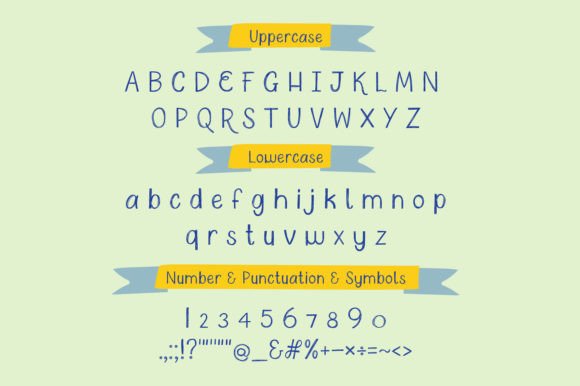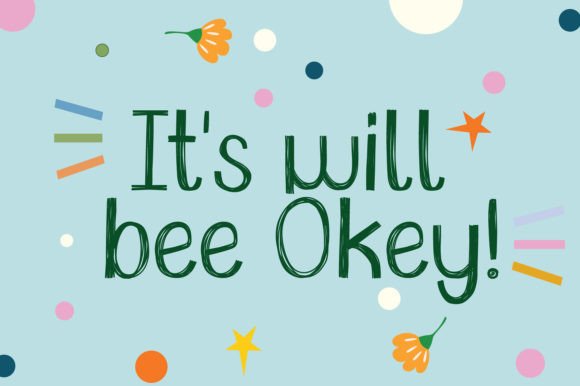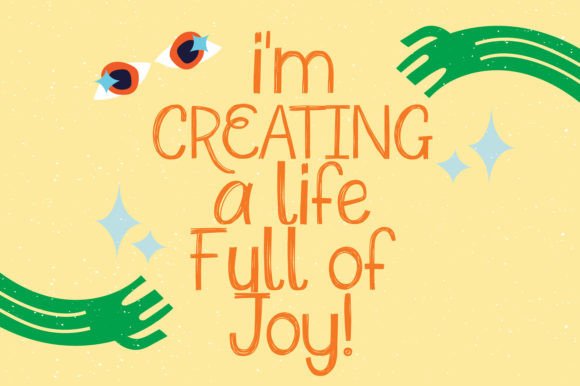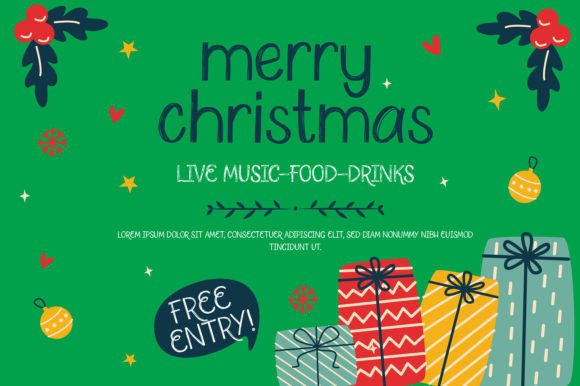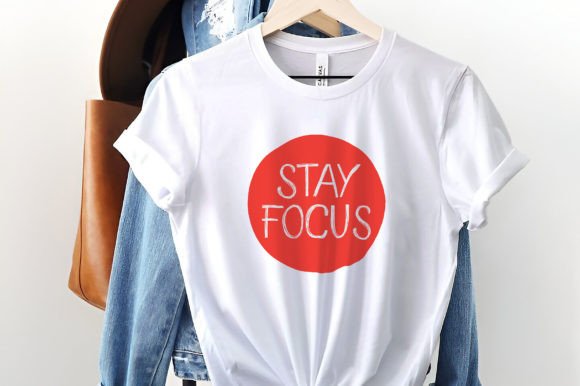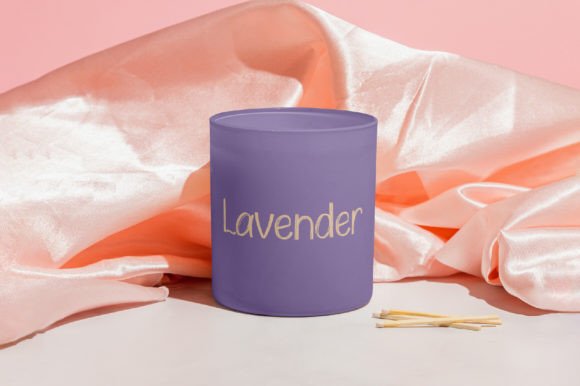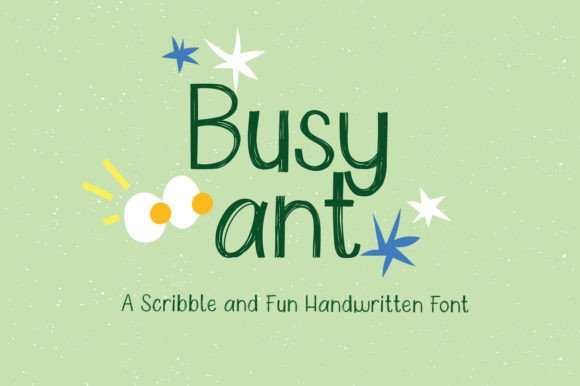
Discover the Charm of Busyant Font: A Sweet and Friendly Handwritten Delight
Are you on the hunt for a font that adds a touch of warmth and personality to your designs? Look no further than Busyant Font, a sweet and friendly handwritten font that’s sure to capture your heart. With its natural and unique style, Busyant Font is incredibly versatile and can be used in a wide range of designs, from playful crafts to elegant branding projects. The only limit is your imagination!
The Characteristics of Busyant Font
Busyant Font boasts a distinctive handwritten style that’s both sweet and sophisticated. Its unique characteristics make it stand out from other fonts, and its friendly demeanor makes it approachable and relatable. Here are a few key features that make Busyant Font so special:
- Natural and Unique Style: Busyant Font has a distinctly human feel, with subtle imperfections and variations that give it a one-of-a-kind charm.
- Handwritten with Love: This font is carefully crafted to evoke the feeling of being written with love and care, making it perfect for projects that require a personal touch.
- Highly Versatile: Busyant Font can be used in a wide range of designs, from whimsical crafts to elegant branding projects, and everything in between.
What Makes Busyant Font So Versatile?
Busyant Font’s versatility is one of its greatest strengths. Its unique style and friendly demeanor make it suitable for a wide range of projects, including:
- Crafts and DIY Projects: Busyant Font is perfect for crafty projects, such as handmade cards, gift tags, and scrapbooking.
- Branding and Packaging: This font is ideal for branding projects that require a personal touch, such as product labels, packaging, and business cards.
- Digital Designs: Busyant Font can be used in digital designs, such as social media graphics, blog posts, and website headers.
- Stationery and Invitations: This font is well-suited for stationery and invitation designs, such as wedding invitations, birthday cards, and thank-you notes.
Tips for Using Busyant Font Effectively
To get the most out of Busyant Font, here are a few tips to keep in mind:
- Pair it with Other Fonts: Busyant Font pairs well with other fonts, such as sans-serif fonts for a modern look or serif fonts for a more traditional feel.
- Experiment with Colors: This font looks great in a variety of colors, from bright and bold to soft and pastel.
- Use it for Headings and Titles: Busyant Font is perfect for headings and titles, where its unique style and friendly demeanor can really shine.
| Font Name | Busyant Font |
| Author | MTK Studio |
In conclusion, Busyant Font is a sweet and friendly handwritten font that’s perfect for designers and crafters looking to add a touch of warmth and personality to their projects. With its natural and unique style, Busyant Font is incredibly versatile and can be used in a wide range of designs. Whether you’re working on a crafty project, a branding project, or a digital design, Busyant Font is sure to delight. So why not give it a try and see what amazing creations you can come up with?
The only limit is your imagination, so don’t be afraid to get creative and have fun with Busyant Font!